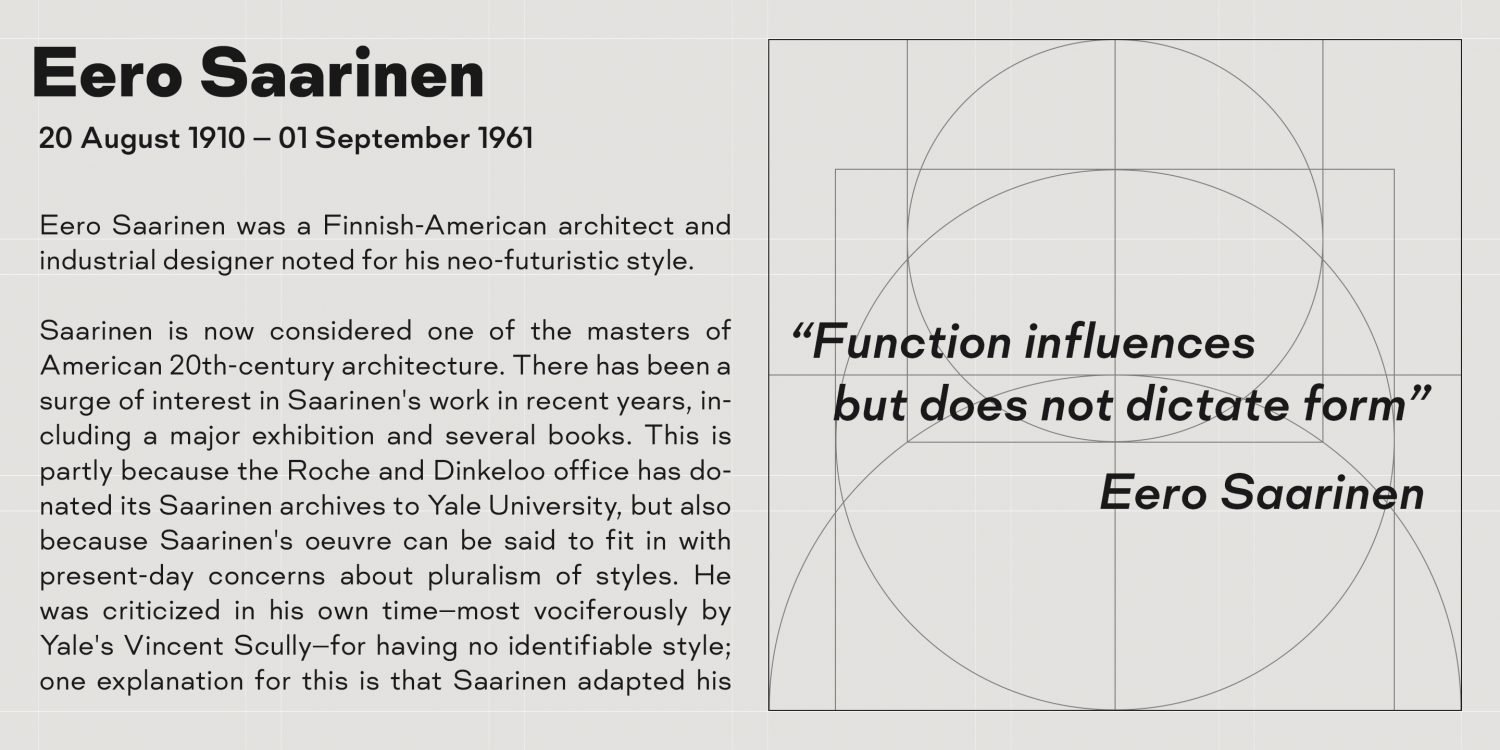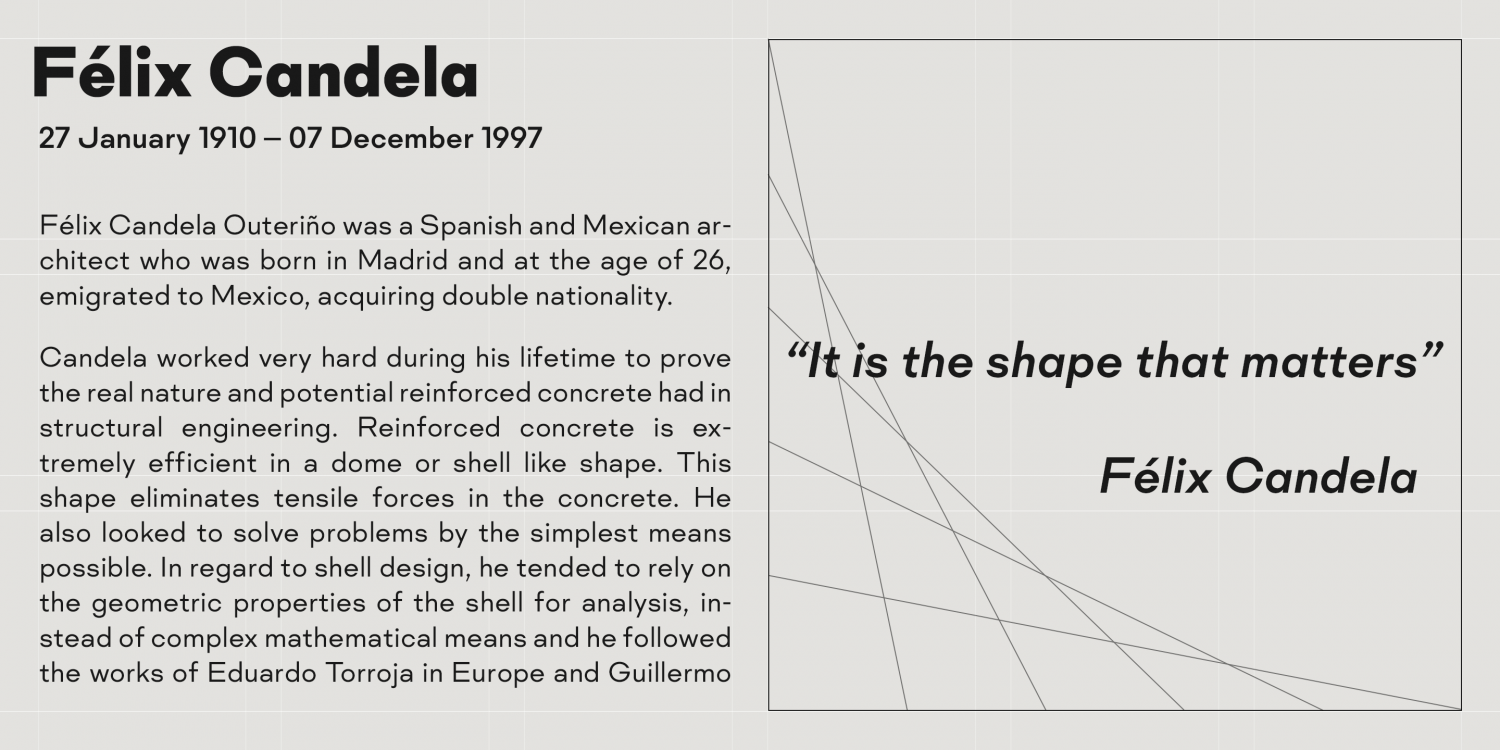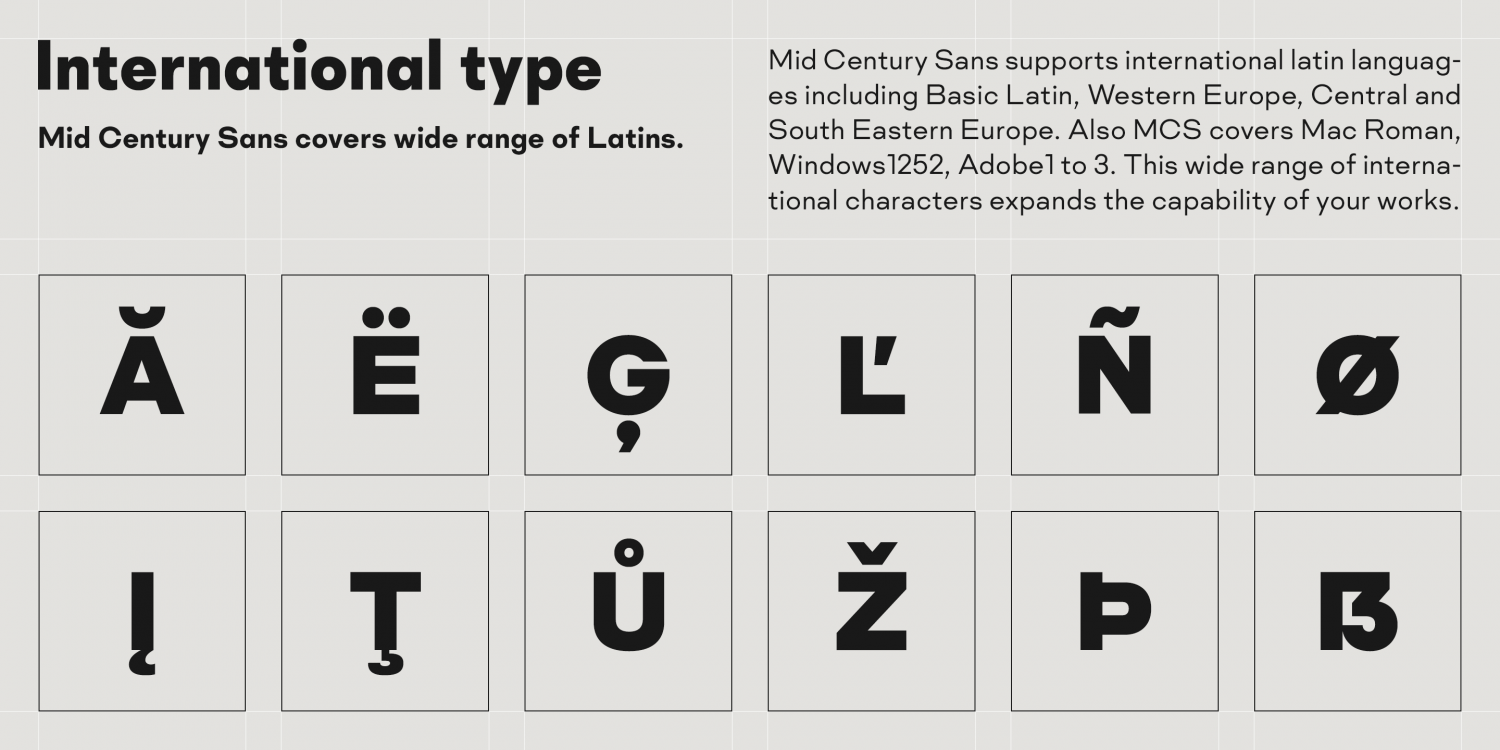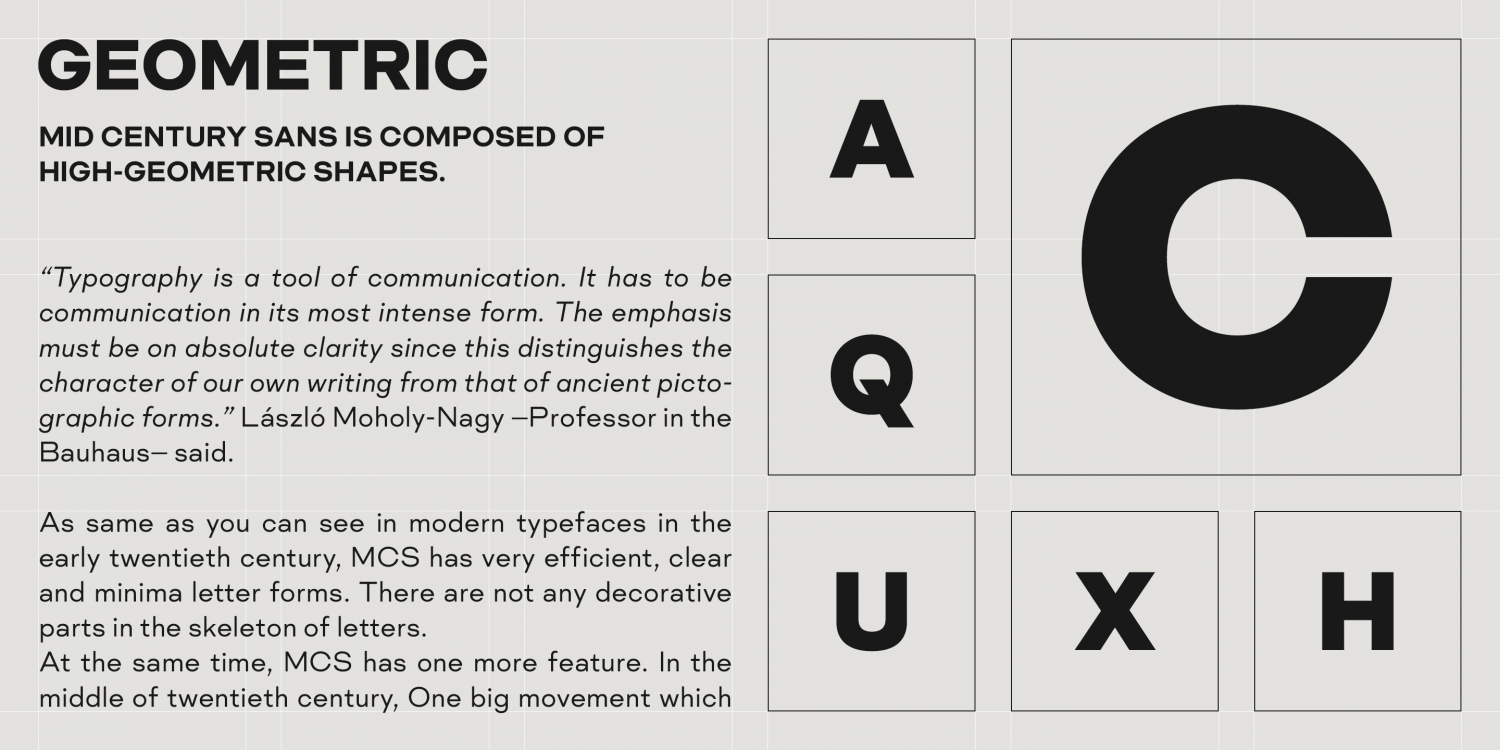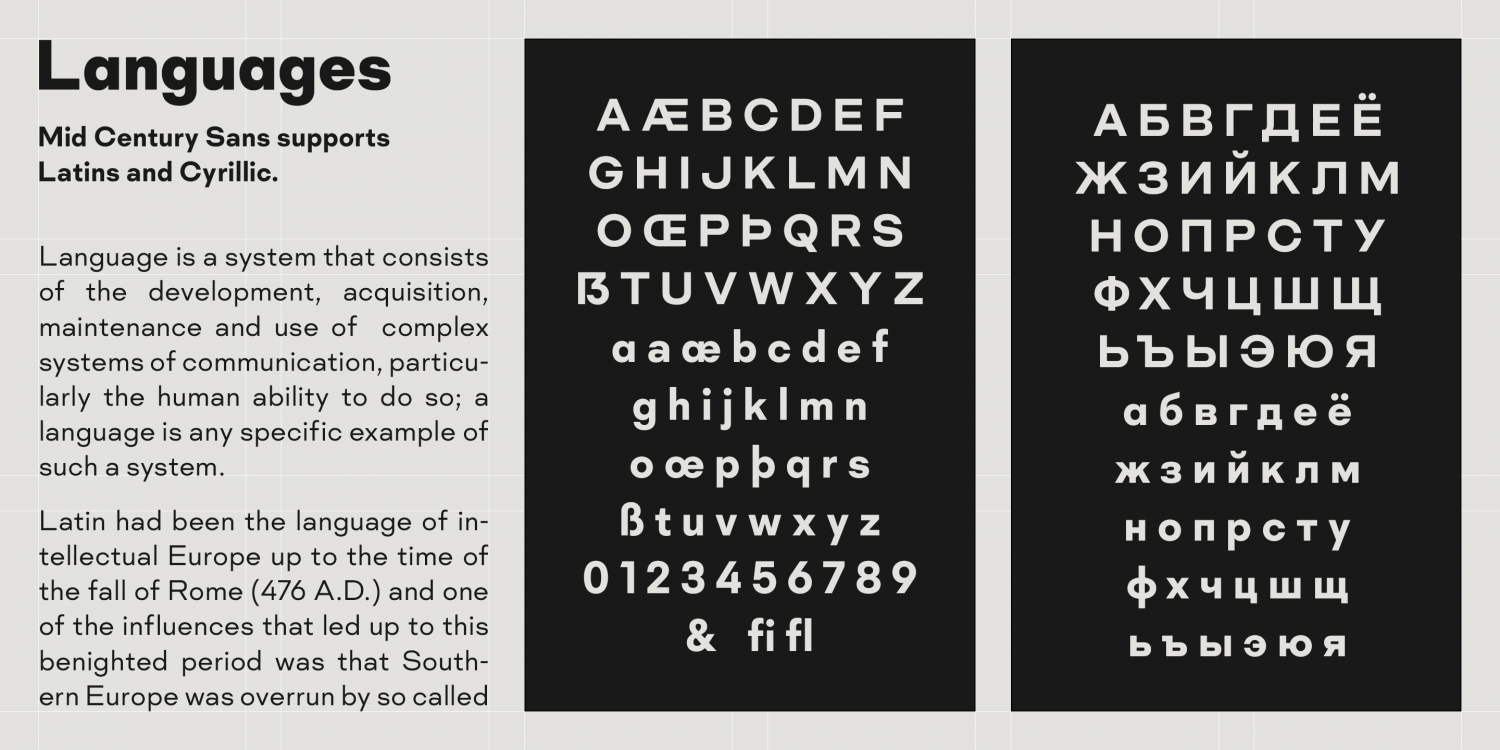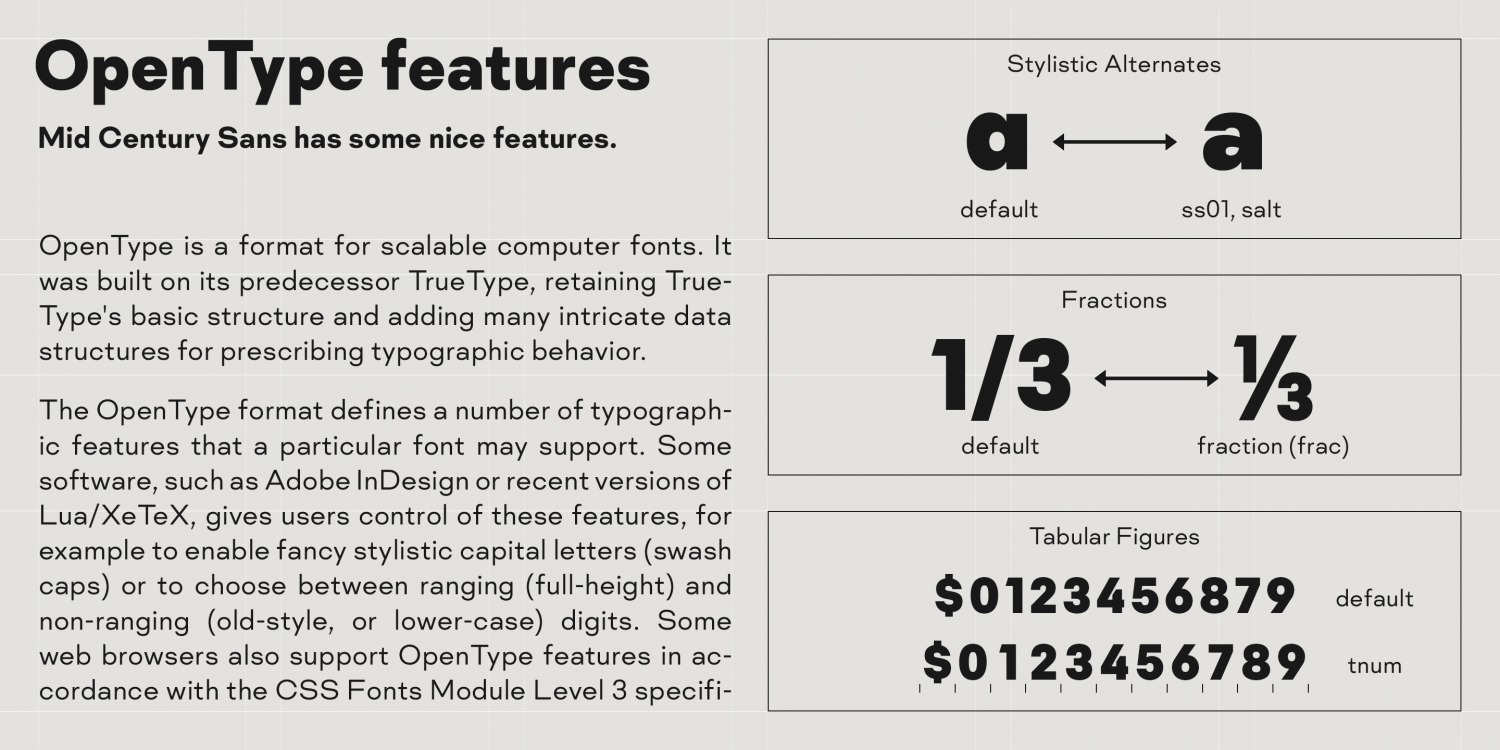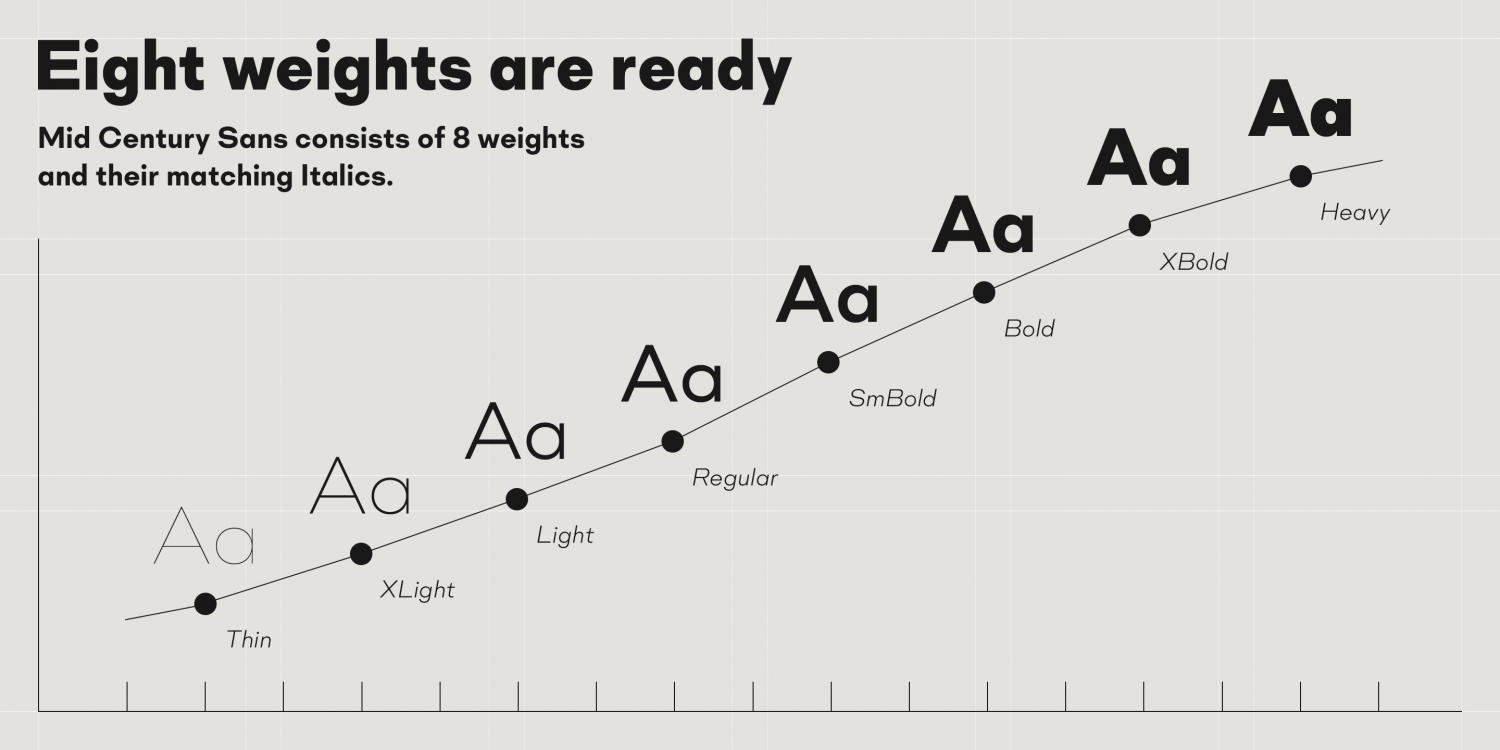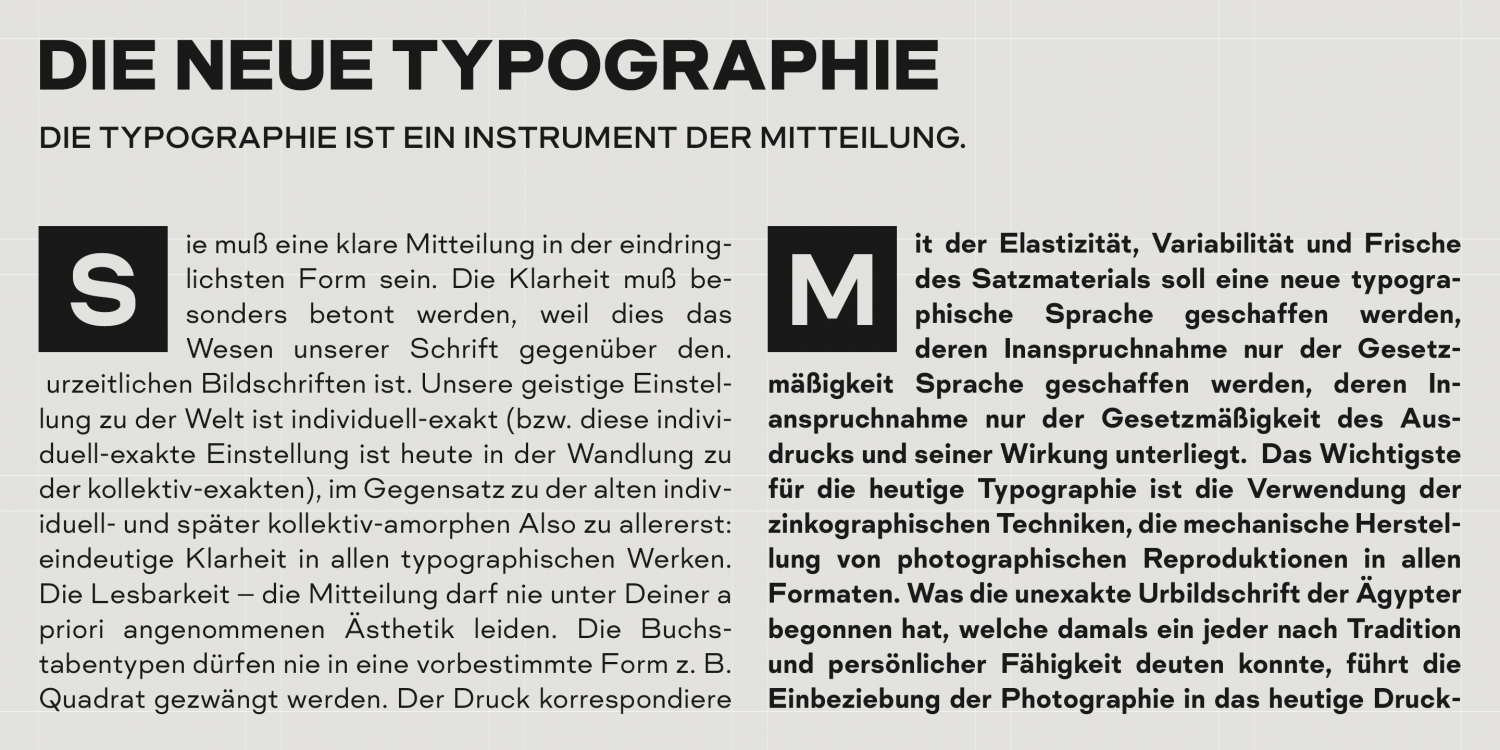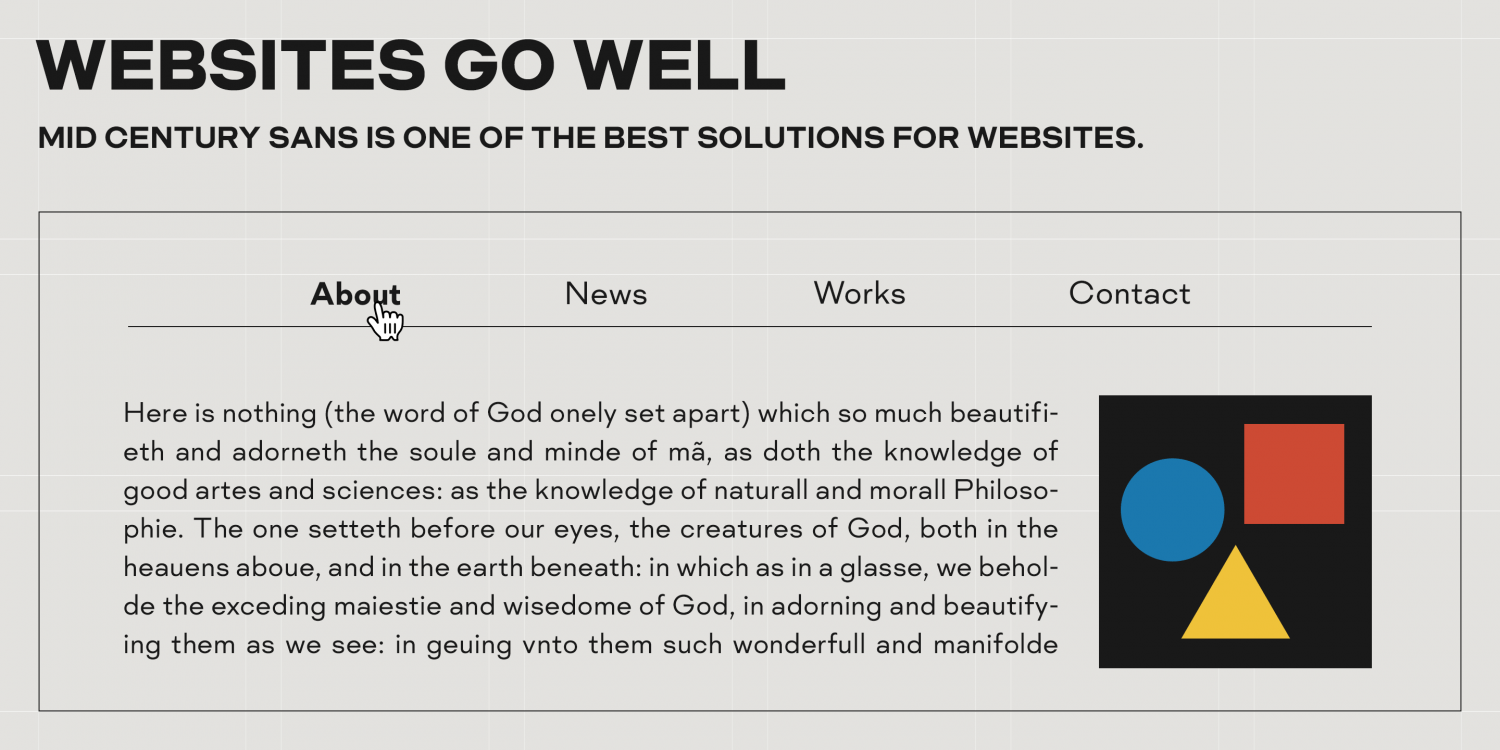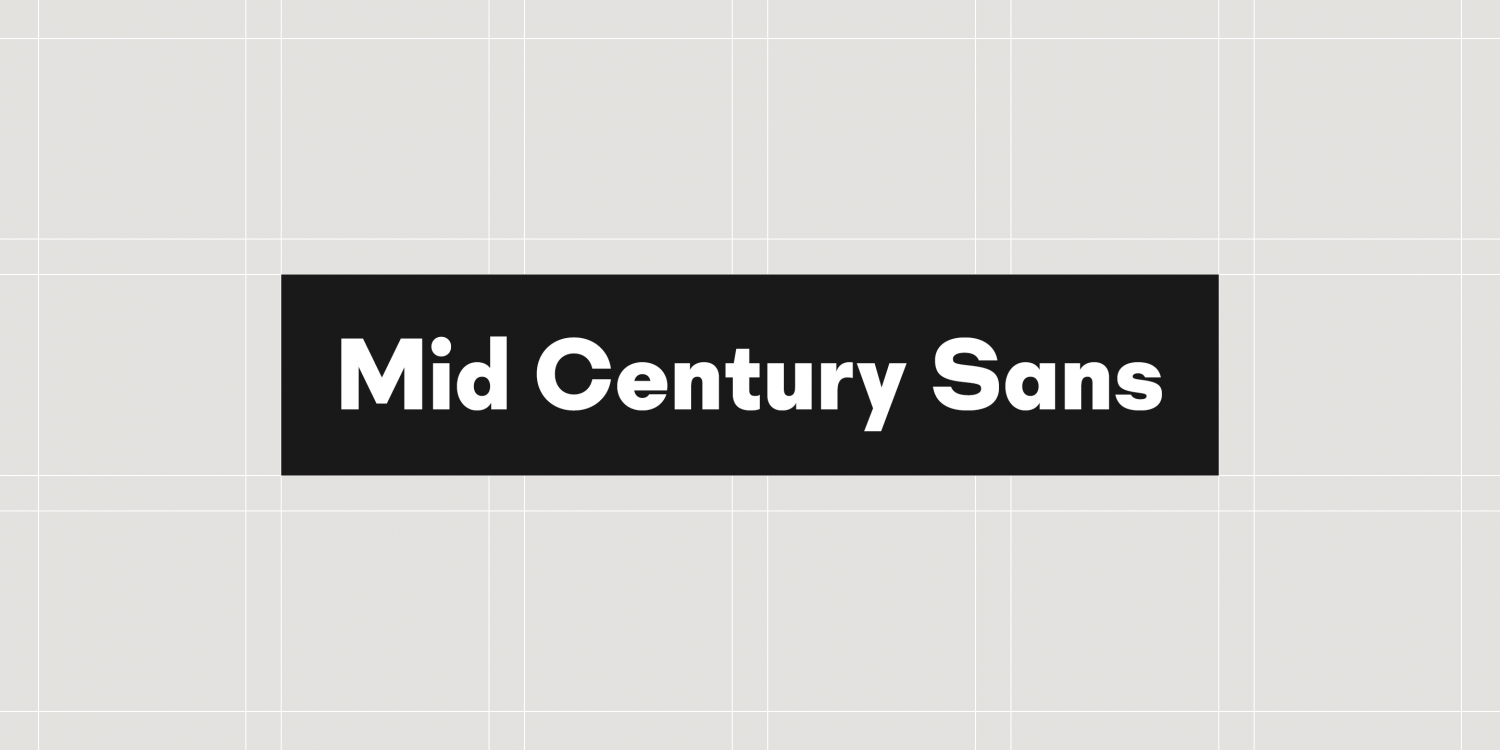
HomeFont BrosMid Century Sans Font Bros Mid Century Sans FacebookTwitterPinterestWhatsApp 1 of 10 About Mid Century Sans (MCS) is composed of high-geometric shapes. L  DOWNLOAD NOW 65 0 People also explored Queen Elizabeth Font Font Betshy Font Trademark Font Astronueu Medium Font Place Bellecour Font School Children Font Dinosaur Font Brightness Font Roselove Font Bramble Princess Font Bromswold Font Birthday Holiday Font Tags7366FMid Century Sans Font Previous articleYWFT YokeNext articleElliot LEAVE A REPLY Cancel reply Comment: Please enter your comment! Name:* Please enter your name here Email:* You have entered an incorrect email address! Please enter your email address here Website: Save my name, email, and website in this browser for the next time I comment. Unlock Endless Creativity with the FREE September Clipart Huge Bundle (Valued at $700!) Personal Use Free Underwood Champion Personal Use Free Read more Snaily Personal Use Free Read more Nottingsam Personal Use Free Read more Cataleya Personal Use Free Read more BLOG Where to Buy American Fonts Online in 2024 Where to Buy American Fonts Online: The Ultimate Guide for 2024 Looking for the perfect American font to elevate your design projects? You're in the... Using Fonts in Digital Marketing: Tips to Strengthen Your Brand Identity To increase your work productivity, choose the most readable fonts. The 10 Best Handwriting Fonts to Add Personality to Your Designs